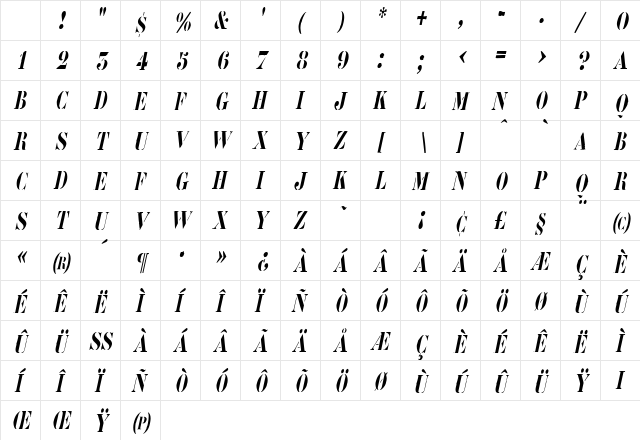
Complete RoadcaseCondensed Oblique glyph index. Displaying only characters natively supported by RoadcaseCondensed Oblique font.
RoadcaseCondensed is a composed and adaptable typeface that performs quietly and consistently across a wide range of design contexts. The slanted form adds forward momentum and visual energy. Its narrow stance lets it pack a punch even in space-constrained designs.